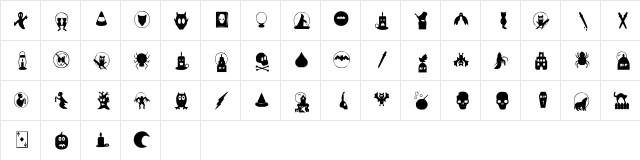
sbhading Regular
Design Context for sbhading Typeface
sbhading is a composed and adaptable typeface that performs quietly and consistently across a wide range of design contexts.